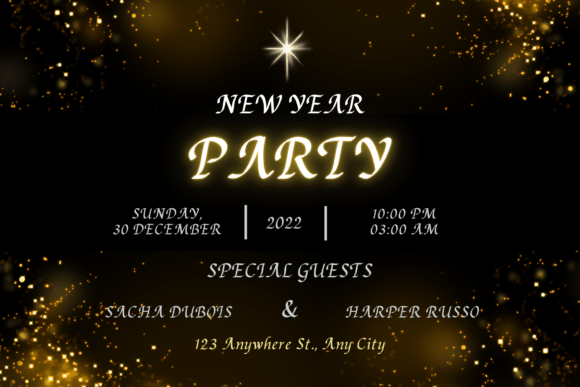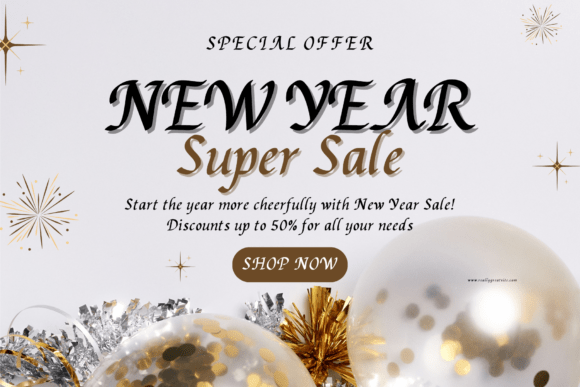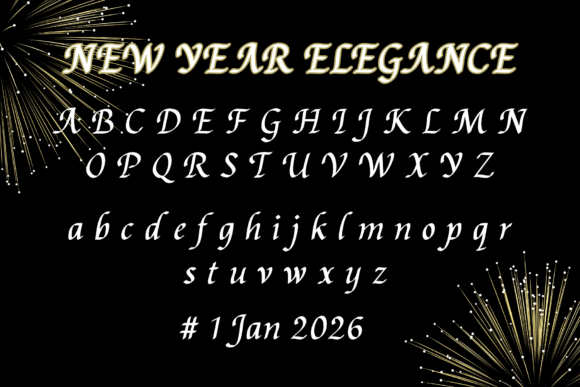
Introduction to New Year Elegance Font
As the clock strikes midnight on New Year’s Eve, the air is filled with excitement and anticipation. You’re surrounded by loved ones, champagne glasses clinking, and the sound of cheering crowds in the distance. It’s a moment of pure magic, and the perfect opportunity to celebrate the start of a new chapter in your life. Whether you’re hosting a glamorous soiree or simply gathering with friends and family, the right design can elevate the moment and make it truly unforgettable.
That’s where the New Year Elegance Font comes in – a stunning, celebratory script that’s sure to make your New Year’s Eve invitations, event branding, and holiday greeting cards stand out from the crowd. With its sharp, italicized slant and tapered ends, this typeface is the epitome of sophistication and style, perfect for designers looking to add a touch of high-end glamour to their creative projects.
Key Features of New Year Elegance Font
- High-quality, elegant font design perfect for creative projects and New Year’s celebrations.
- Comes in a single weight, ideal for adding a touch of sophistication to your design without overwhelming the content.
Honest Review: New Year Elegance Font
As a designer, I was excited to try out the New Year Elegance Font for my upcoming creative project. I was pleasantly surprised by its high quality and elegant design. The font is perfect for creating a sophisticated and luxurious atmosphere, making it ideal for designs related to the New Year or special occasions.
Here are some things that work well with the New Year Elegance Font:
- ✨ The elegant design of the font makes it suitable for a wide range of creative projects, from wedding invitations to luxury branding materials.
However, I did encounter a few limitations with the New Year Elegance Font:
- ⚠️ The font is only available in a limited range of styles, which may not be suitable for all design projects.
- ⚠️ The font may not be as versatile as some other fonts on the market, which can limit its use in certain creative contexts.
Overall, I was impressed with the New Year Elegance Font and would recommend it to designers looking for a high-quality, elegant font for their creative projects.
The New Year Elegance Font is perfect for:
- New Year’s Eve invitations and party decorations
- Corporate branding and marketing materials
- Personalized gifts and cards